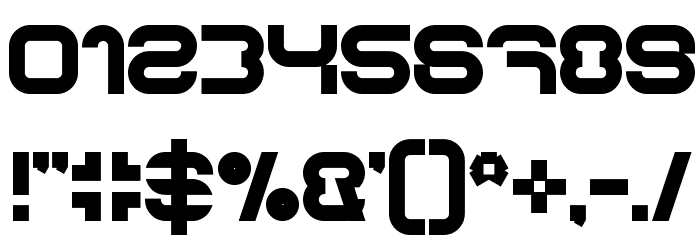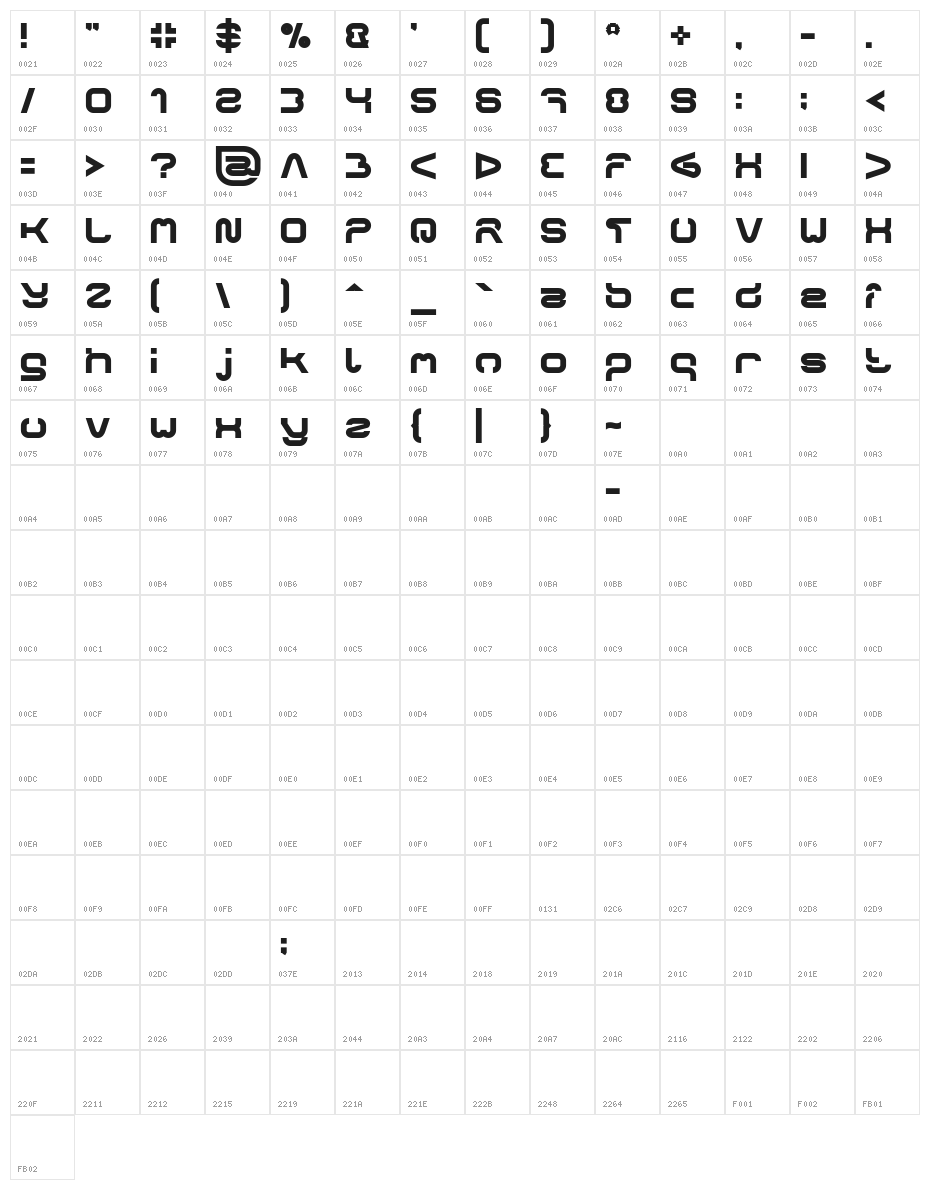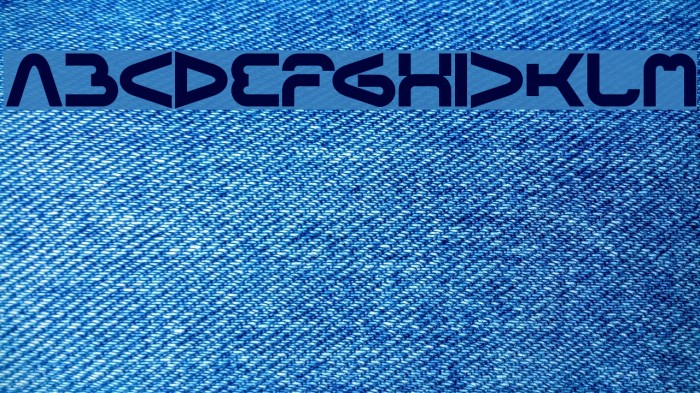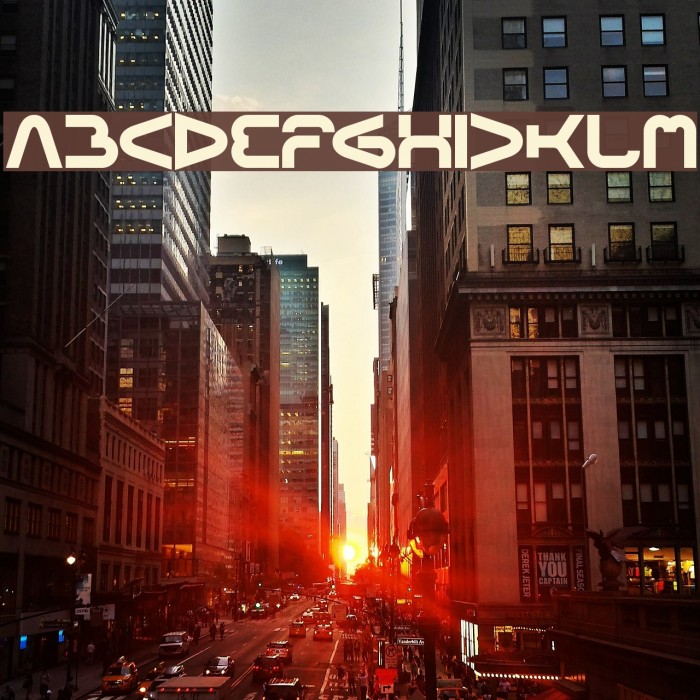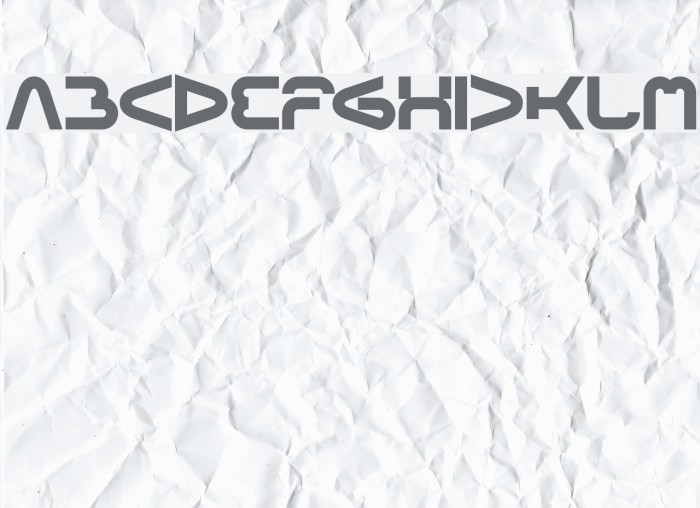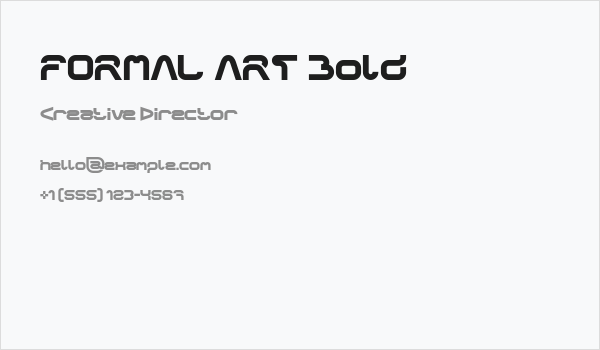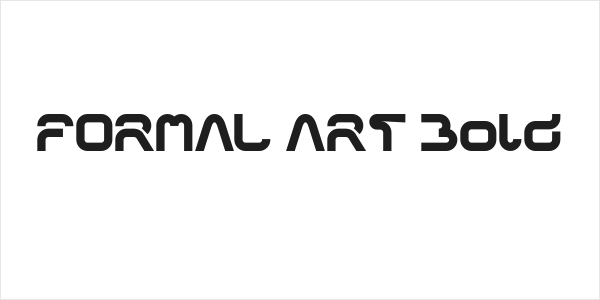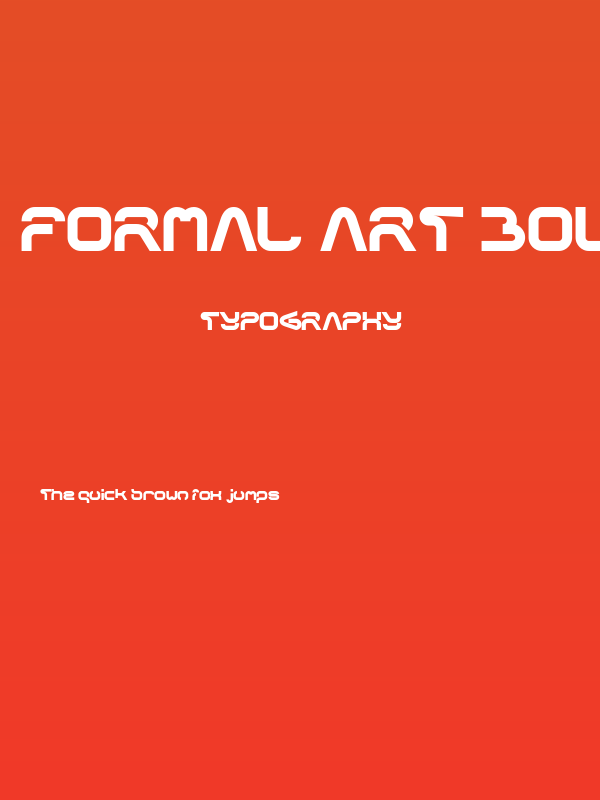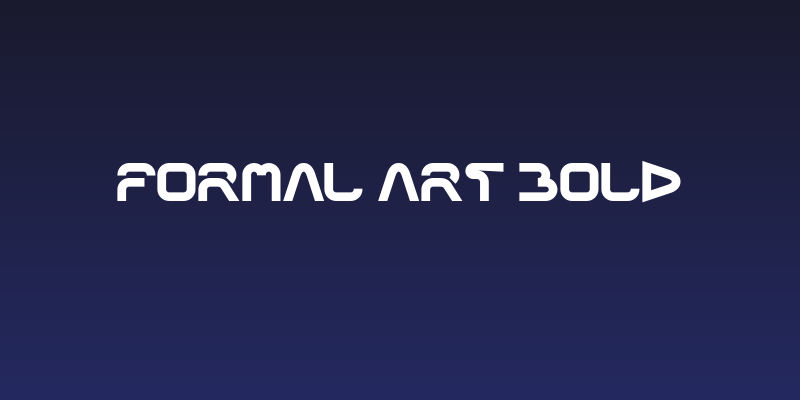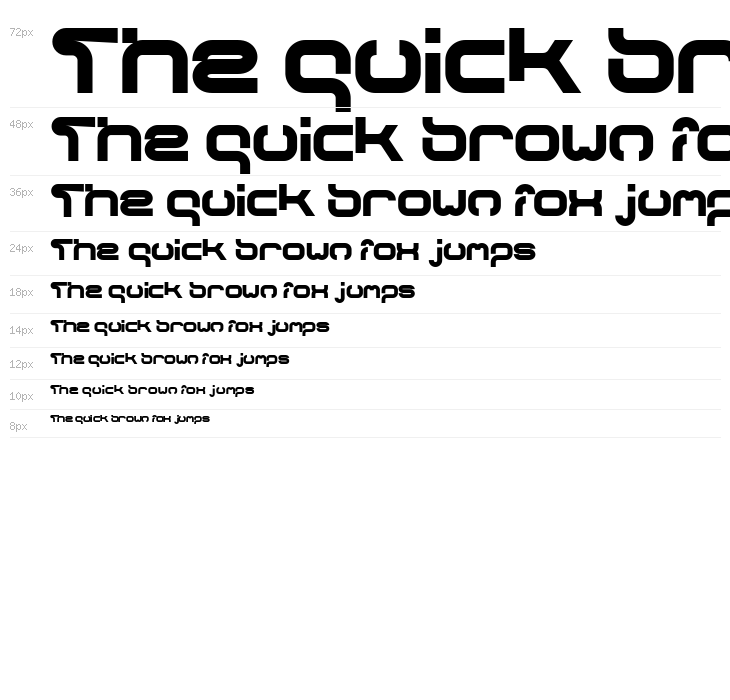
FORMAL ART Bold Font
FORMAL ART Bold Description
This font exhibits a bold and futuristic design with a geometric structure. The characters are formed with thick, consistent strokes, creating a strong visual impact. The uppercase and lowercase letters maintain a uniform width, contributing to a cohesive appearance. The numerals and special characters follow the same design principles, ensuring a harmonious look across all elements. The font's style is reminiscent of digital or sci-fi themes, making it suitable for modern and tech-oriented projects.
Proposed ProjectsIdeal for tech branding, sci-fi posters, video game titles, and digital interfaces.